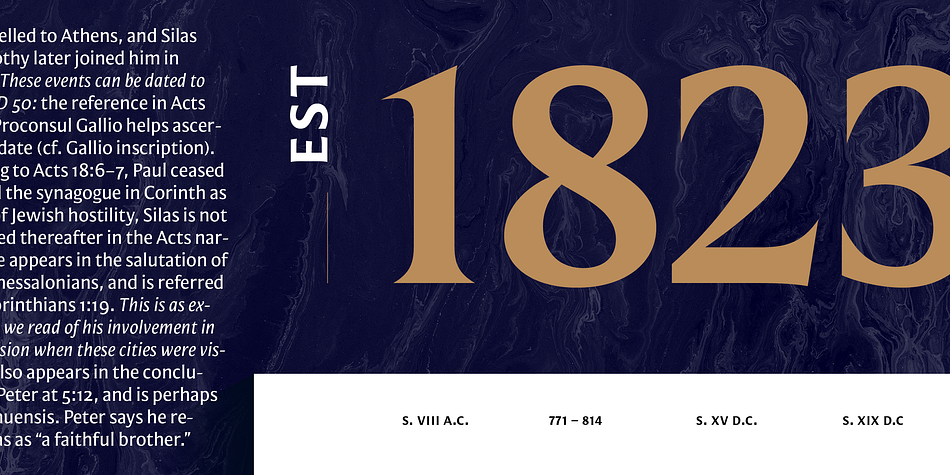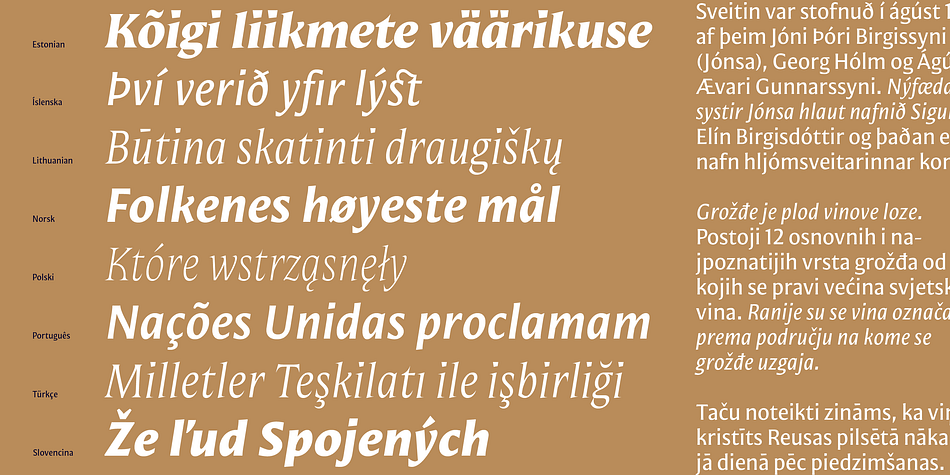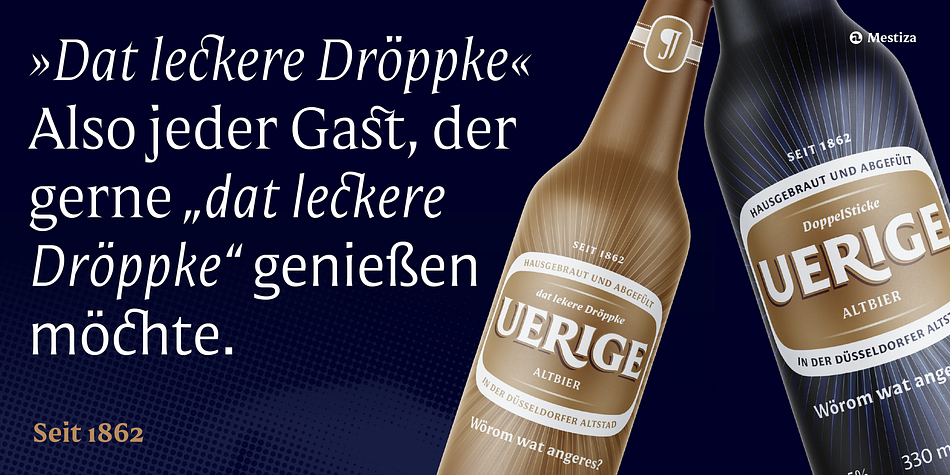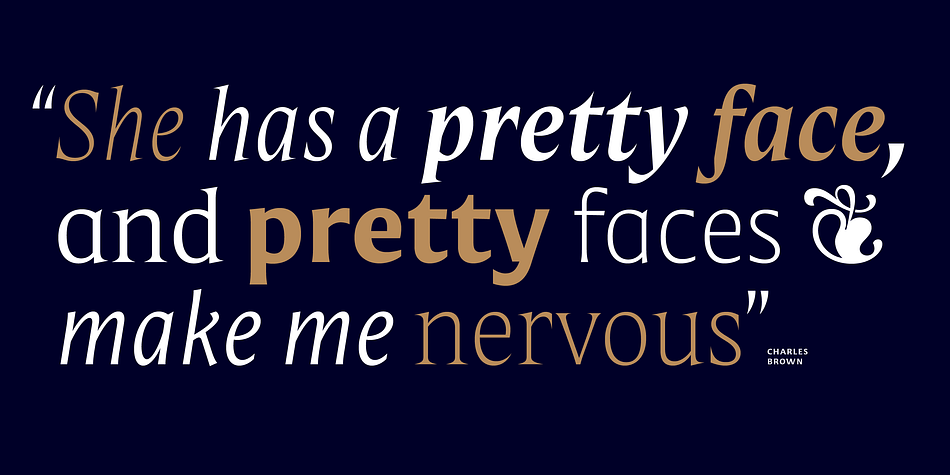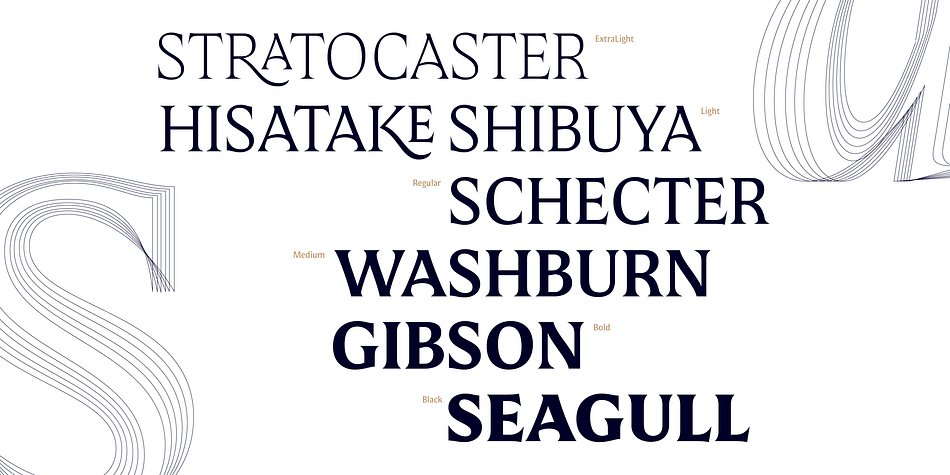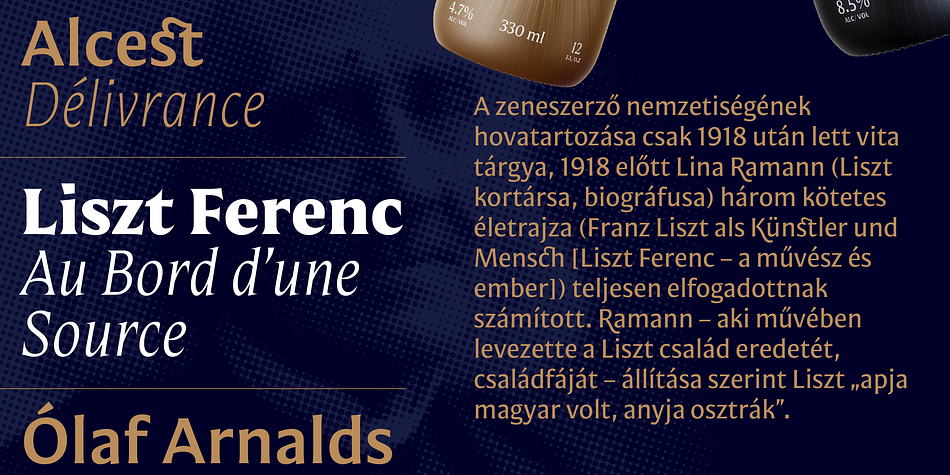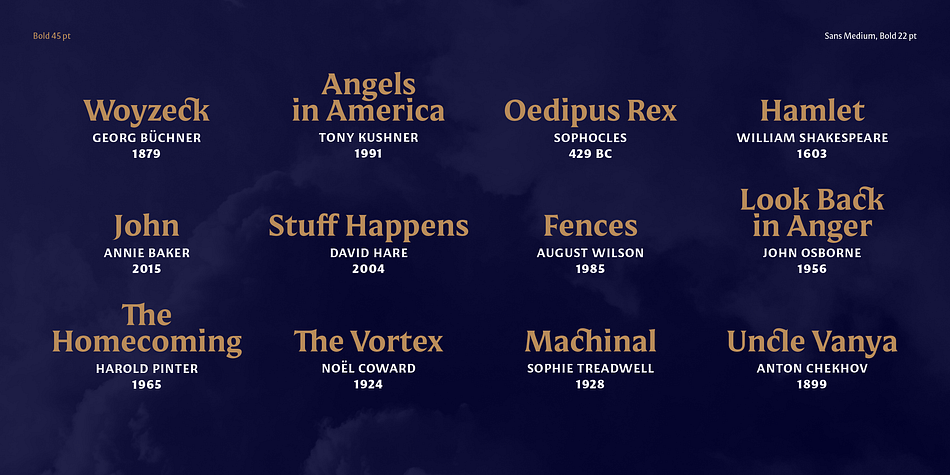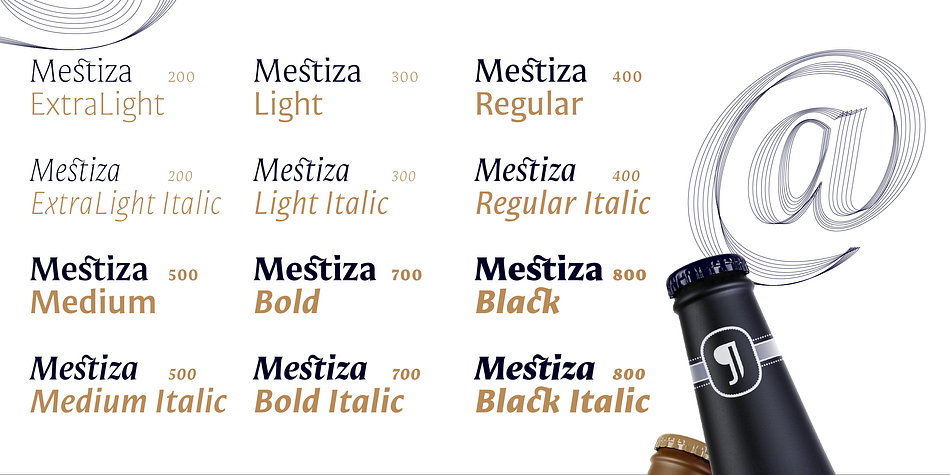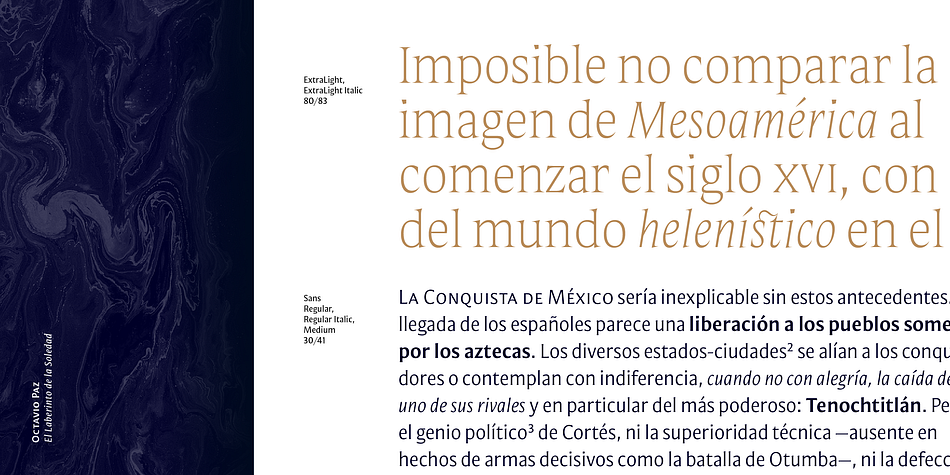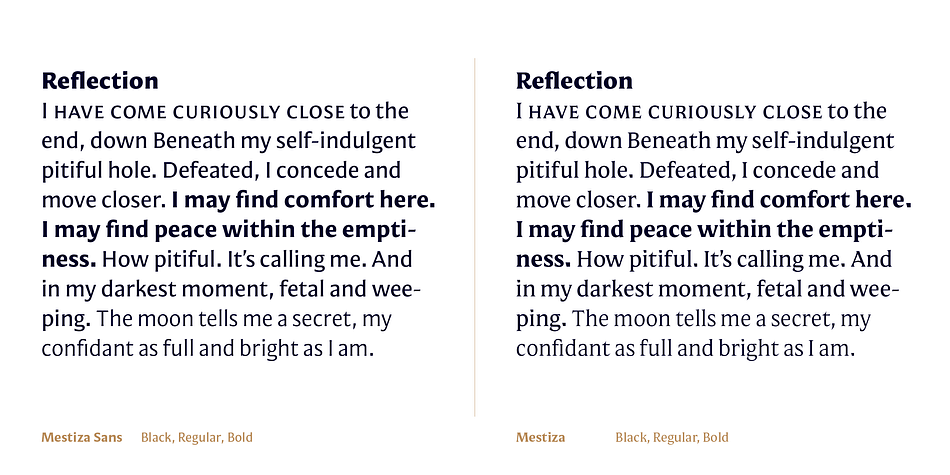
Mestiza & Mestiza Sans Super Family
Designed by Antonio Mejía Lechuga, Mestiza & Mestiza Sans is a sans serif and serif font collection published by Antonio Lechuga.
Mestiza is a type family with a living past, which combines its ancient roots bringing the handmade to the contemporary in a spirited mix that evokes elegance and strength. The combination of Sans and Serif amplifies the possibilities of use.
This Collection contains 24 fonts, ideal for Headlines, Branding, and Editorial projects, thanks to the more than 700 multilingual characters, including Small Caps, Contextual and Discretional ligatures, some Alternates, Symbols, and six kinds of Numerals, as Lining Figures, Oldstyle, Small Caps, Superiors, Inferiors, and Fractions.